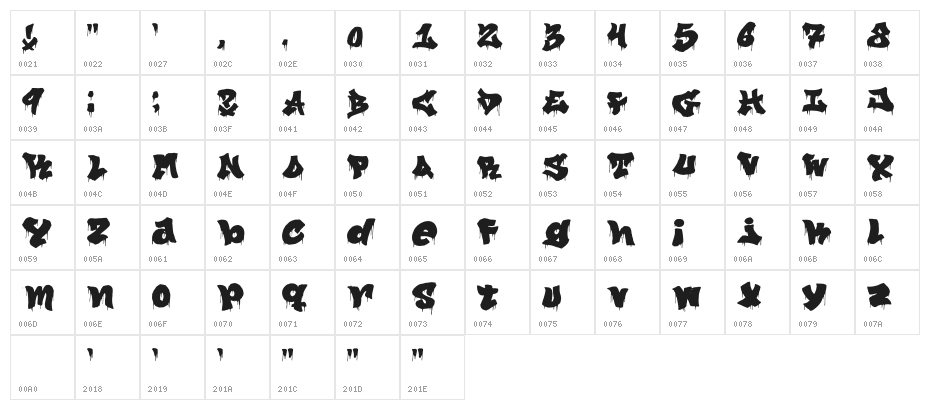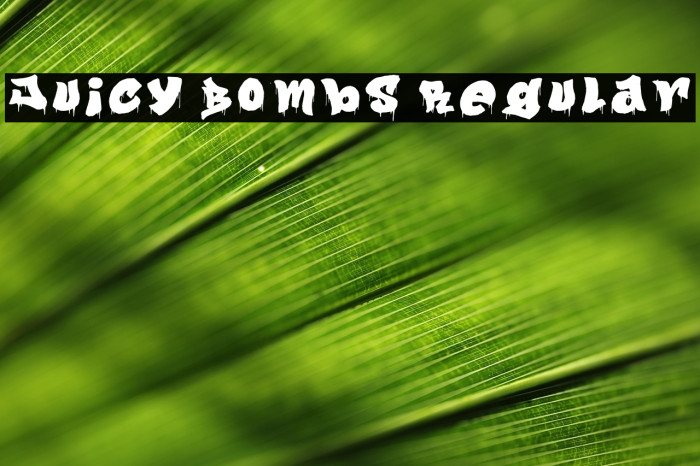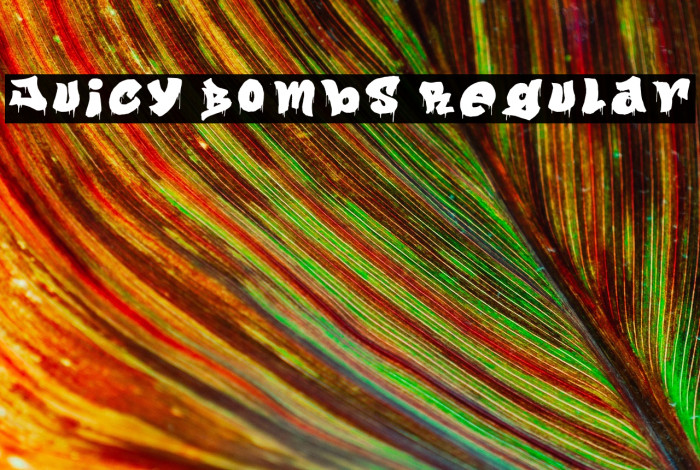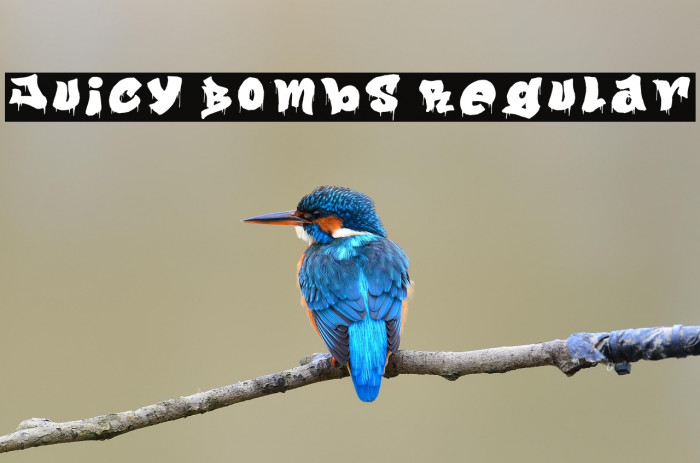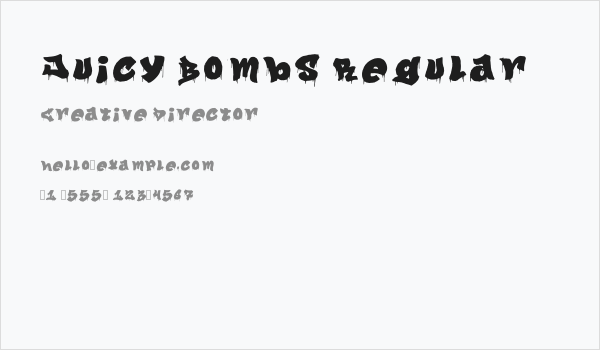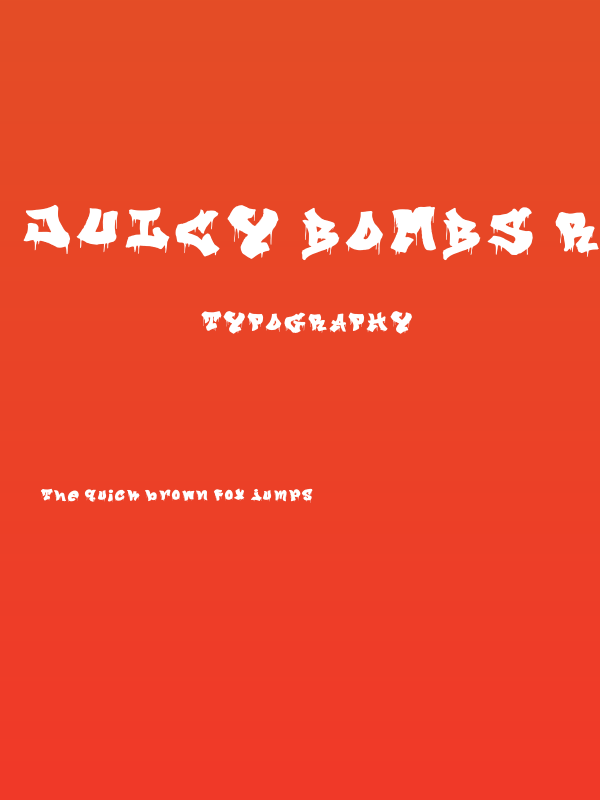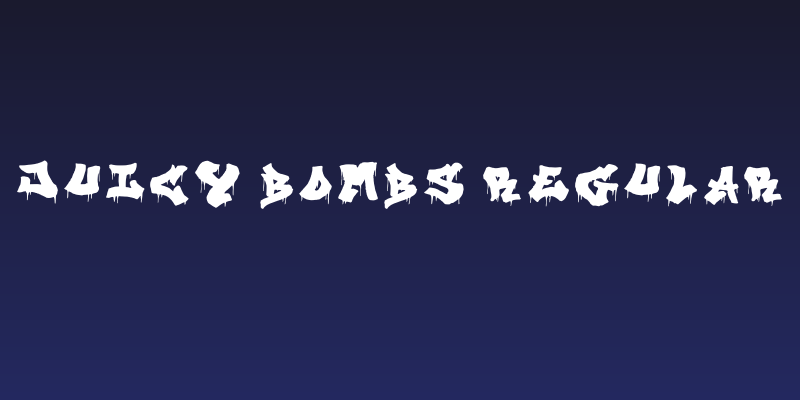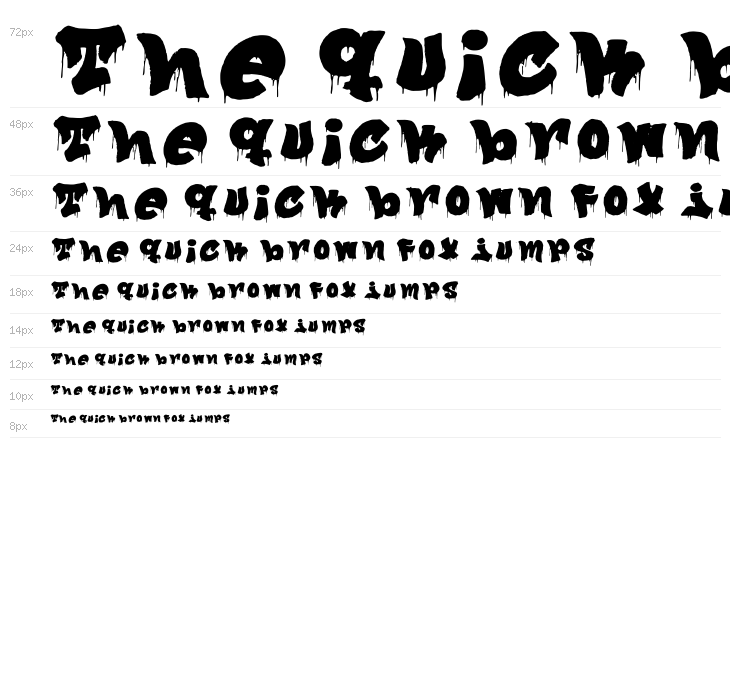
Juicy Bombs Regular Font
Juicy Bombs Regular Description
This font exhibits a bold and edgy style with a graffiti-like appearance. The characters have a dripping effect, reminiscent of spray paint, giving it a rebellious and urban feel. The strokes are thick and uneven, adding to the raw and dynamic nature of the design. This font is highly decorative, with each letter having a unique and artistic flair. The overall look is striking and attention-grabbing, making it suitable for projects that require a bold statement.
| Overall Style | Urban, Edgy, Artistic |
| Proposed Projects | Ideal for street art designs, music album covers, urban-themed posters, and edgy branding projects. |